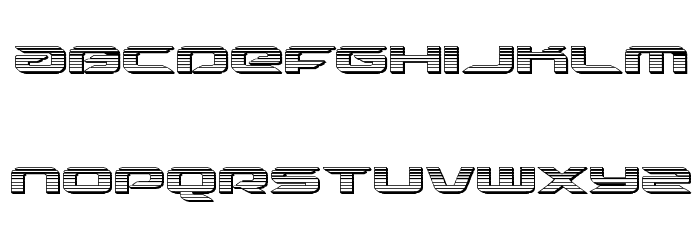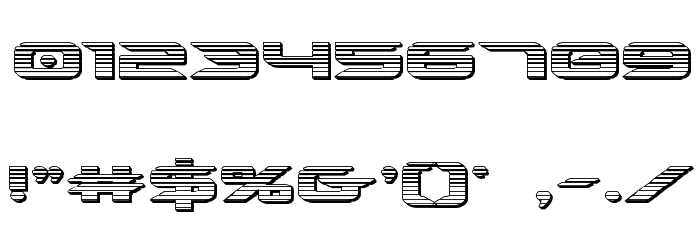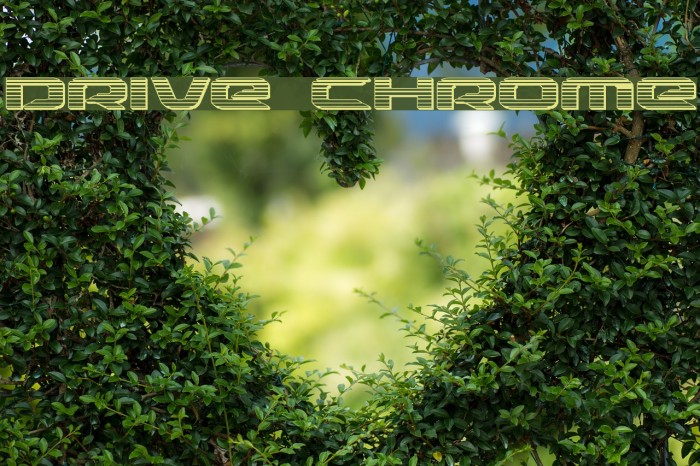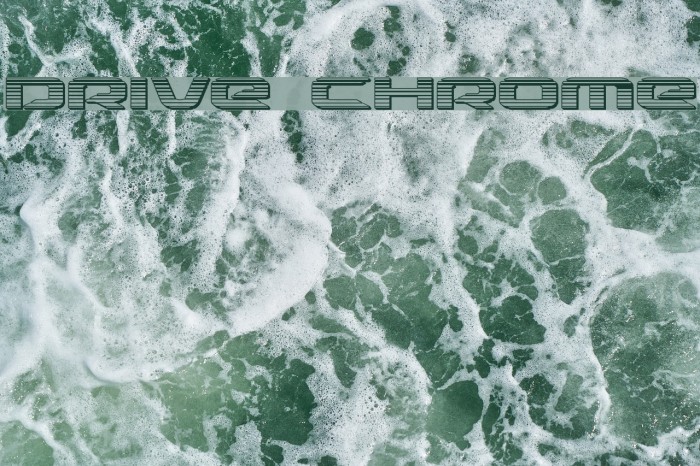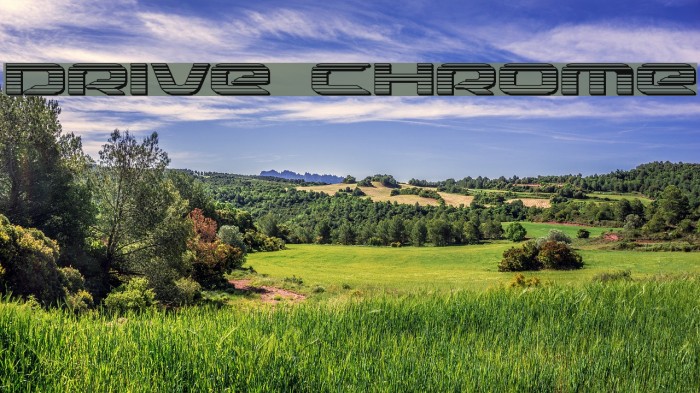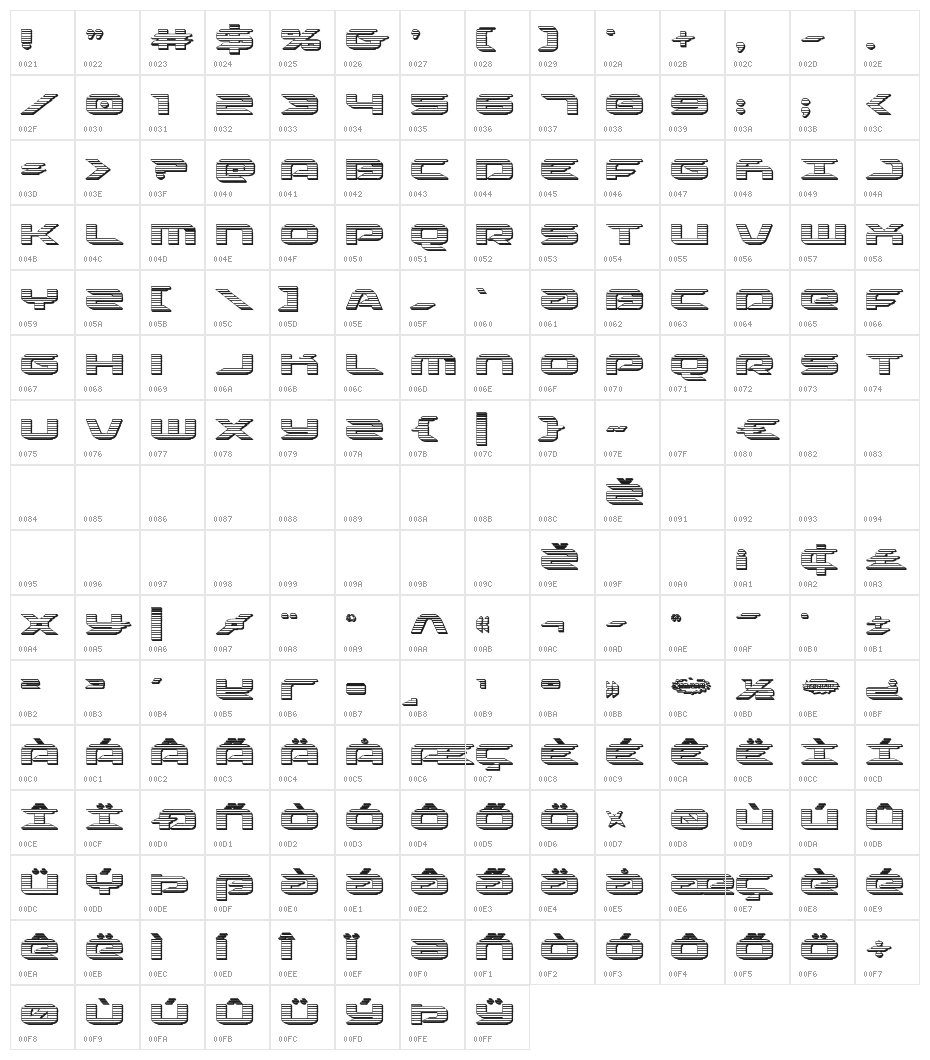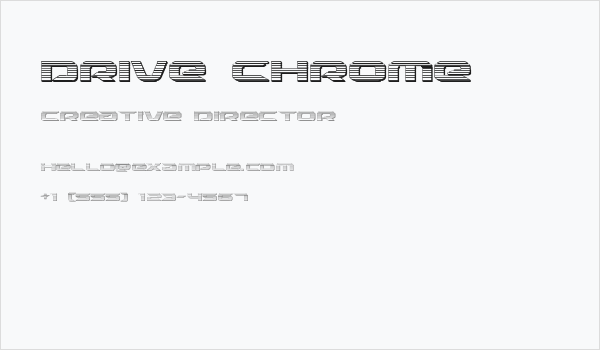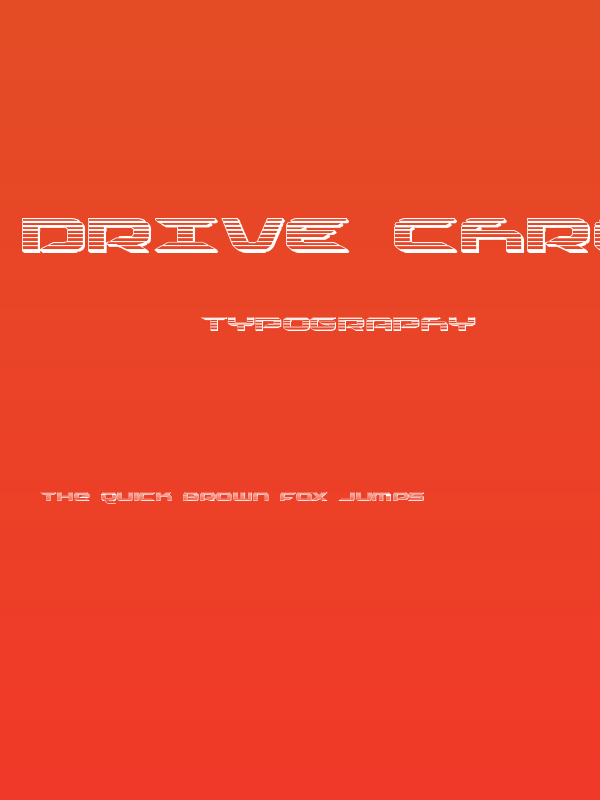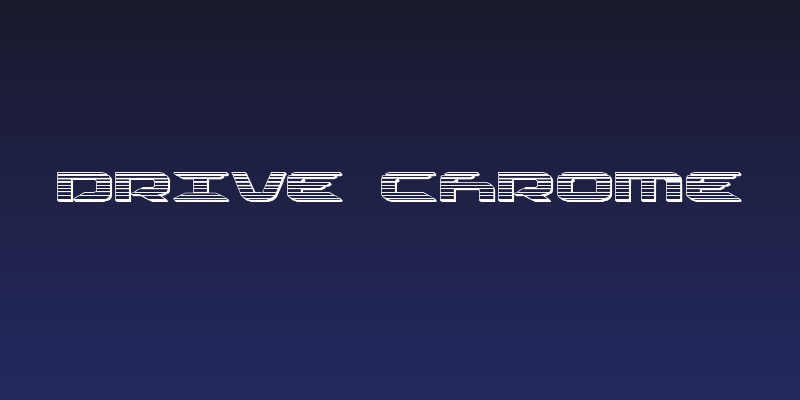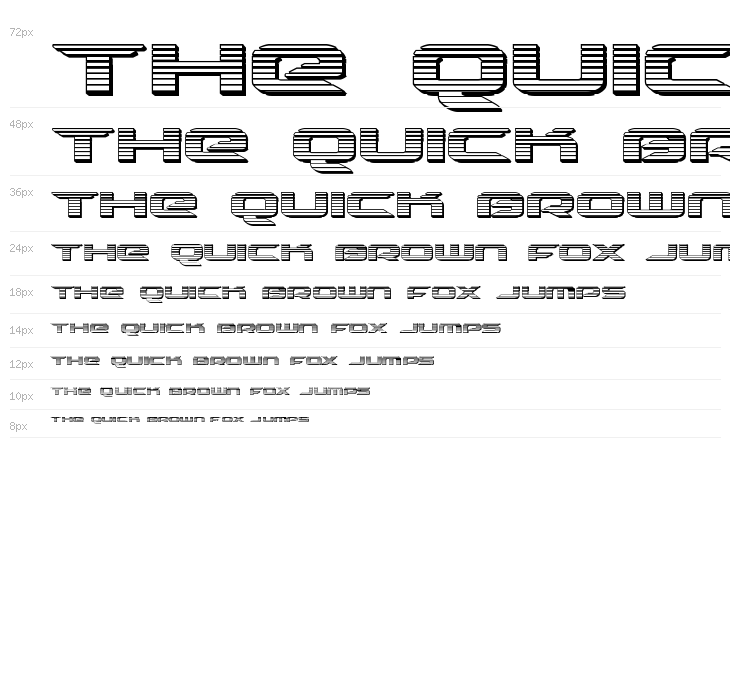
Drive Chrome Font
This font features a futuristic and industrial design, characterized by its bold, geometric shapes and horizontal lines that create a sense of movement and depth. The letters are constructed with multiple parallel lines, giving them a three-dimensional appearance. This style is reminiscent of digital or technological themes, making it ideal for projects that require a modern and edgy look. The uppercase and lowercase letters maintain a consistent style, while the numbers and special characters integrate seamlessly with the overall design. The font's unique structure makes it stand out, suitable for eye-catching headlines or branding materials.
A futuristic, industrial font with bold geometric shapes and horizontal lines.
- Proposed Projects: Ideal for technology branding, sci-fi movie posters, video game titles, and modern advertising campaigns.